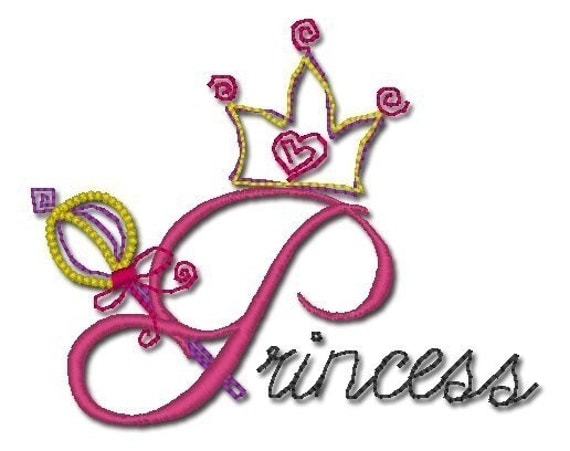
Princess Font Alphabet embroidery designs with script letters
This Set is for Princess Font Capital Letters which all fit the 4x4 hoop. Also included is a separate crown and septor. The lowercase script font will be included to allow you to make names with these fonts. The final design size will depend on the amount of letters used. You will need a way to arrange the fonts, either on your machine or with software on your computer. The script is optimized to prevent jumps when placed close together.
The pictures are of some of the capital letters with the lowercase script letters arranged to embroider names.